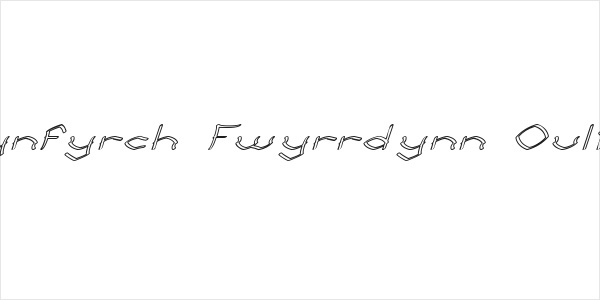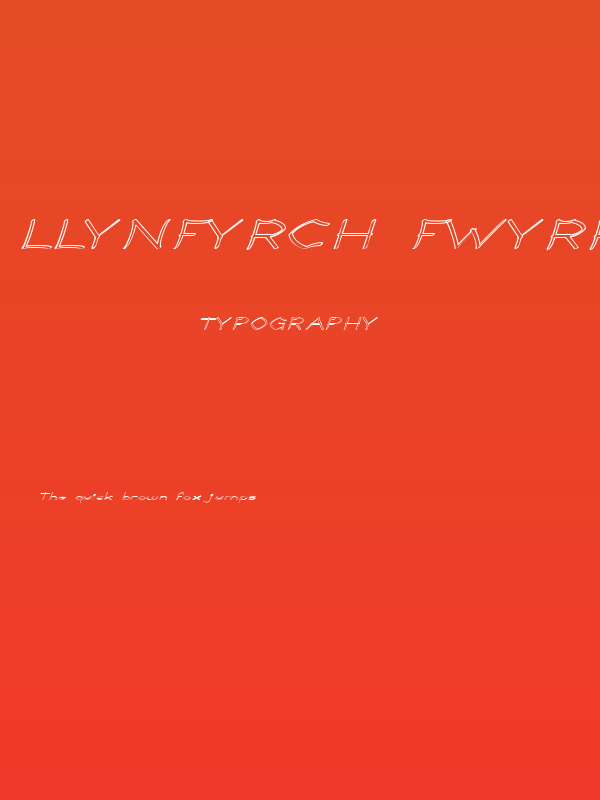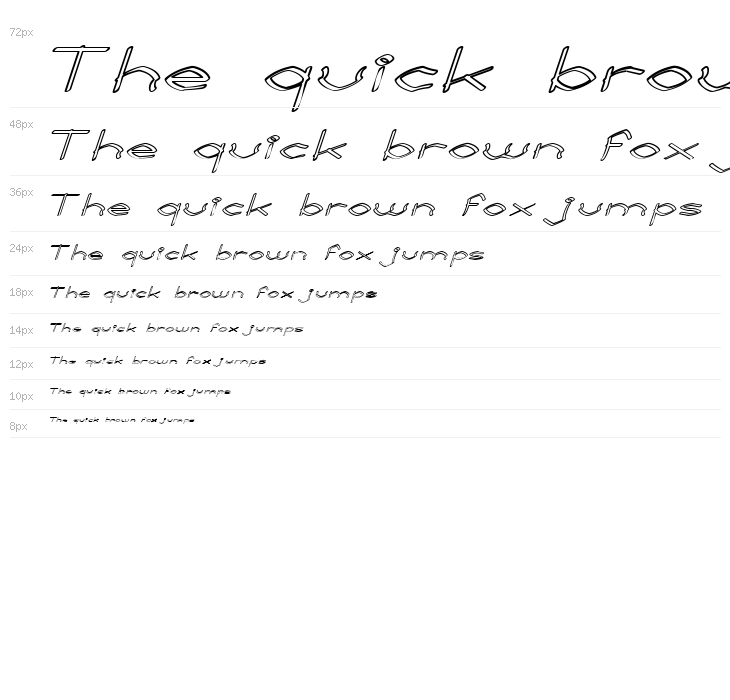
Llynfyrch Fwyrrdynn Ouline Font
Llynfyrch Fwyrrdynn Ouline Description
This font features a unique outline style with a playful and artistic flair. The characters are crafted with a hand-drawn appearance, giving them a whimsical and informal look. The uppercase and lowercase letters maintain a consistent style, with slightly irregular lines that add to the charm. The numbers and special characters follow the same design, ensuring a cohesive appearance across all glyphs. This font's distinctiveness makes it stand out, ideal for creative projects that require a touch of personality and creativity.